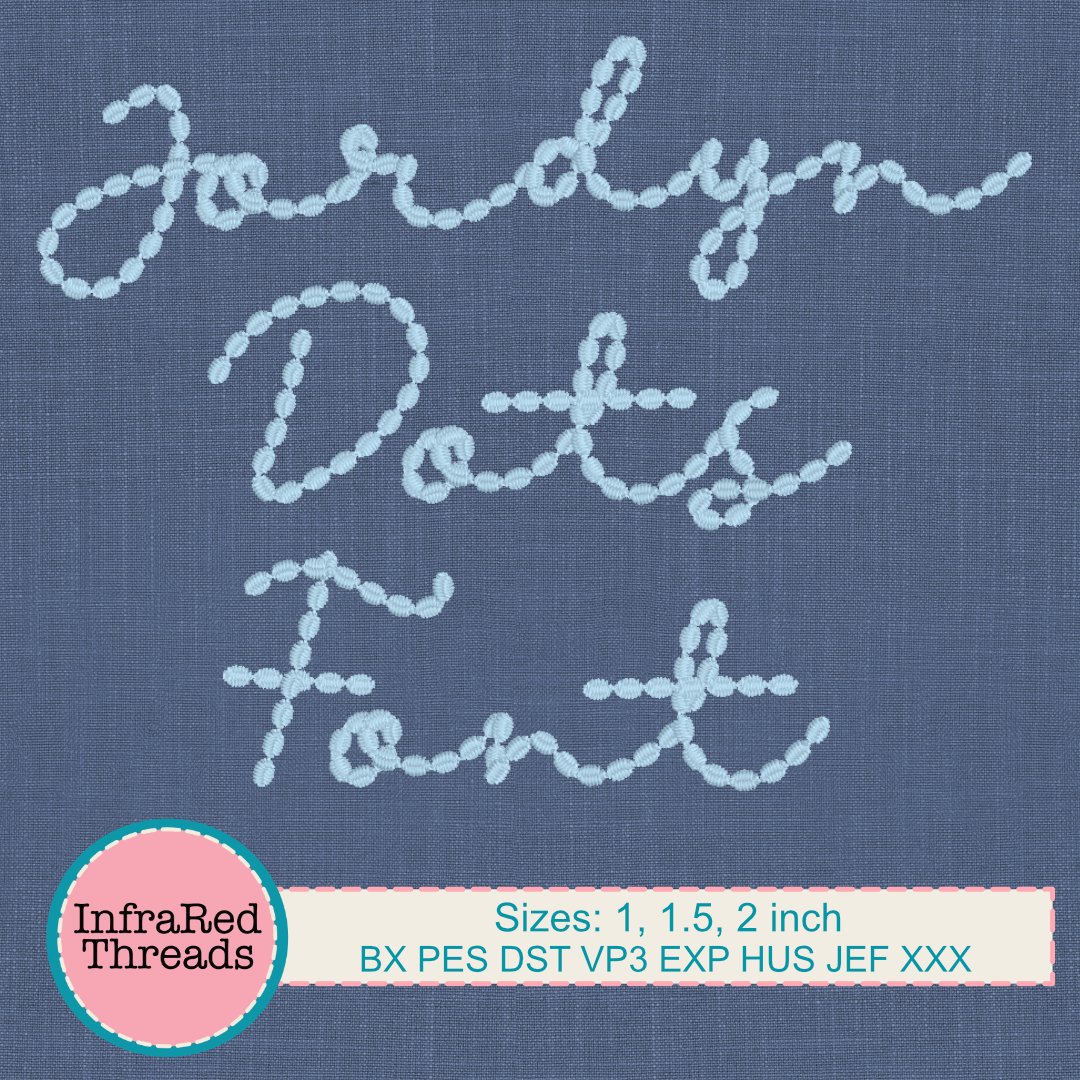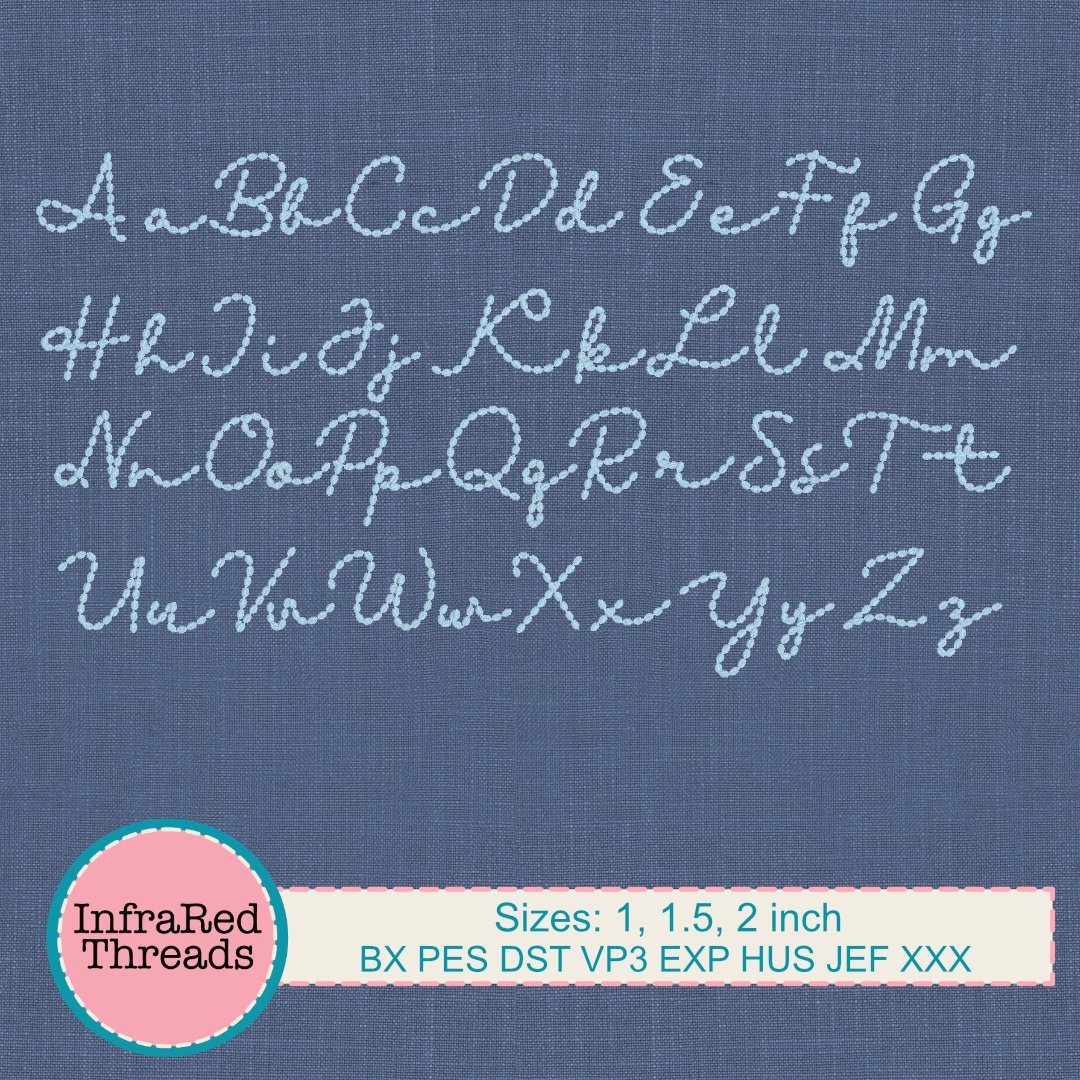
Jordyn Dots Embroidery Font – Playful Script Font in 3 Sizes
The Jordyn Dots embroidery font features a whimsical dotted script style with rounded loops and a flowing baseline. Designed to add a fun, hand-drawn look to names, quotes, and playful projects, this font is perfect for children’s items, gifts, and crafting. Each letter is made up of individually stitched dots for a unique and charming effect.